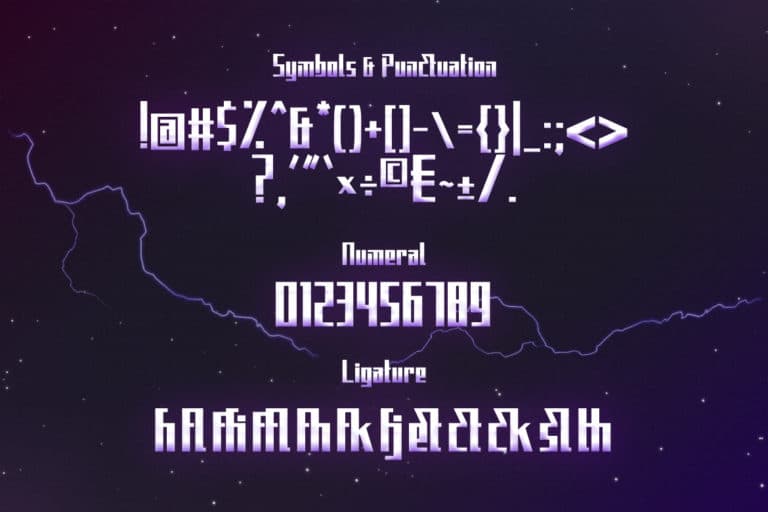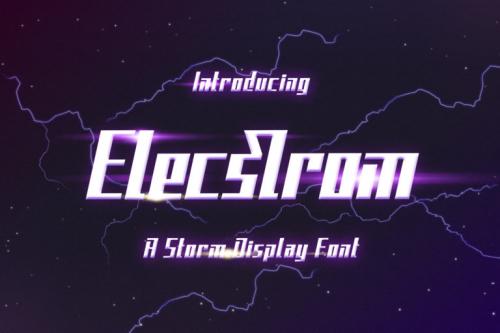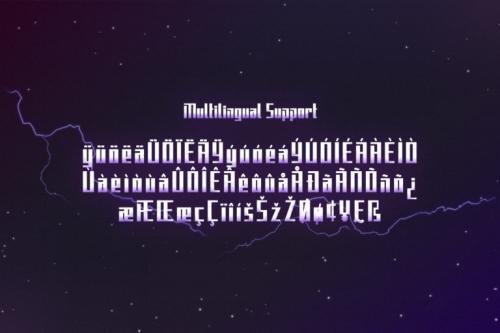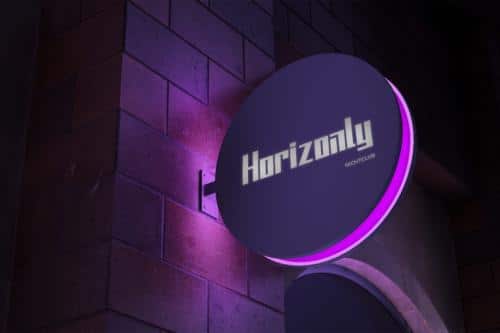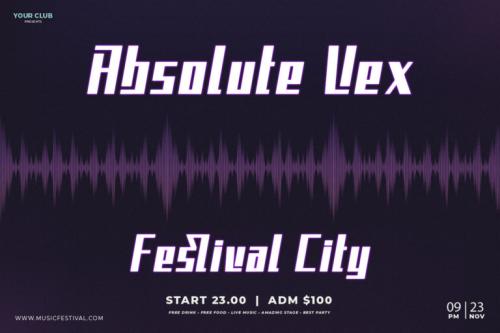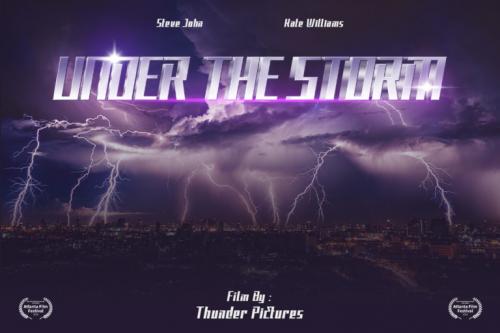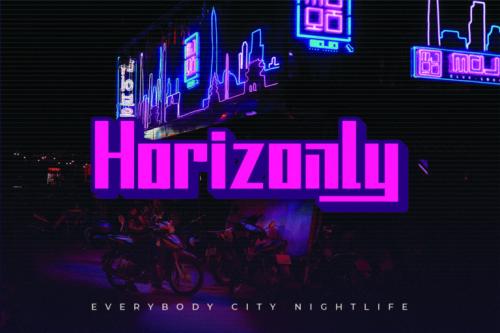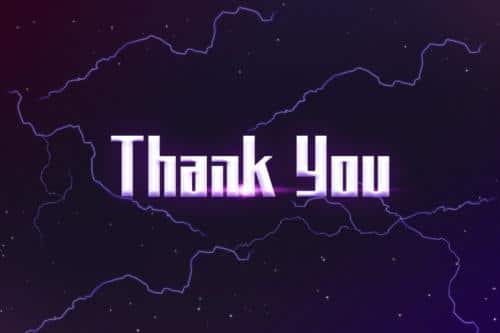
Elecstrom is a storm display font. Elecstrom has a bad weather feels so it has thrilling yet cool experience. Elecstrom is perfect for product cover, signpost, cover album, movie with disaster theme, game, and many more!